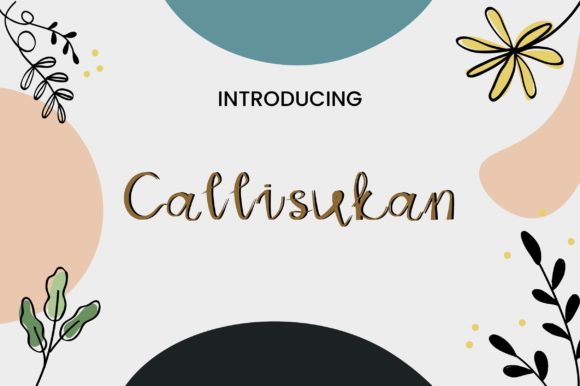
Introducing Callisukan Font: A Script Font That Flows with Elegance and Charm
In the world of typography, where letters speak volumes, Callisukan Font emerges as a true masterpiece. This captivating script font, crafted by the talented designers at Rhetorika Studio, is designed to infuse your digital creations with a touch of magic and allure.
With its graceful curves and playful characters, Callisukan dances along the baseline, adding a touch of whimsy and delight to any project. Its carefully crafted letterforms exude a sense of elegance and charm, making it an ideal choice for those seeking a font that truly stands out.
Step into a world where words come alive and emotions run deep. Let Callisukan Font be your guide as you embark on a creative journey, transforming ordinary text into captivating works of art. Whether you're designing a website, creating social media graphics, or crafting digital invitations, Callisukan promises to elevate your designs to new heights.
Embrace the beauty of imperfections, as Callisukan's hand-drawn style adds a personal touch to every project. Its charming ligatures and alternates create a cohesive and authentic look, capturing the essence of handwritten elegance.
With Callisukan Font, you'll have the power to transform your creative visions into captivating realities. Unleash your imagination and let your words dance with grace and charm. Experience the magic of Callisukan today and elevate your designs to extraordinary new heights!